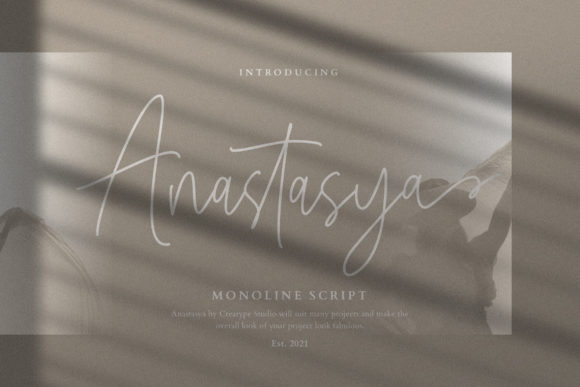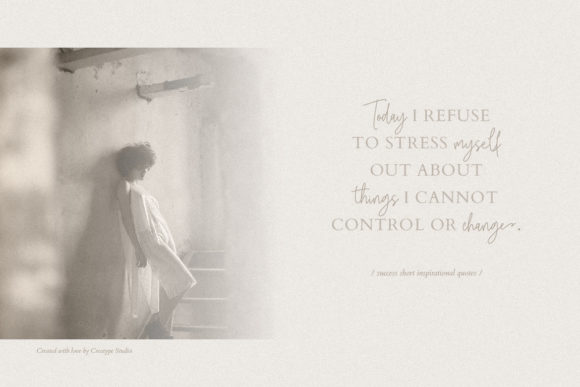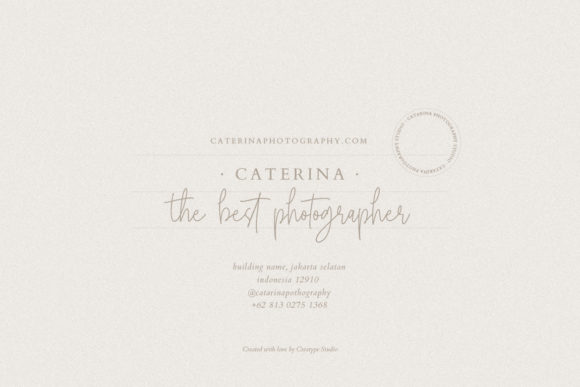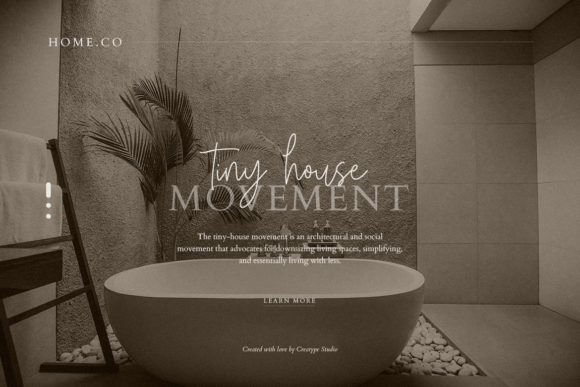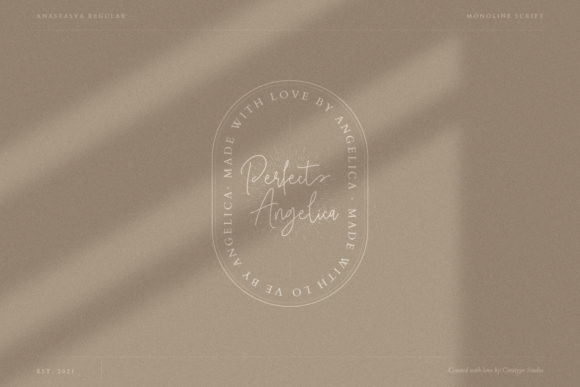
About Anastasya Script Font
Anastasya Script is a beautiful and refined script font. It has a classy, elegant and modern look that can be used for logos, branding, invitations, stationery, wedding designs, social media posts, and much more! Anastasya Script is PUA encoded which means you can access all of the amazing glyphs and ligatures with ease!